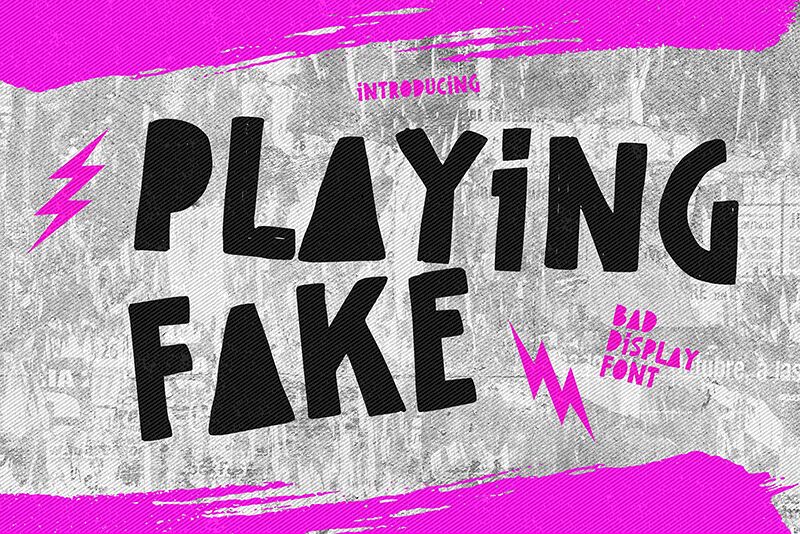
Playing Fake
Discover the dynamic flair of 'Playing Fake,' a standout creation by Gassstype that infuses your projects with a sense of modern spontaneity. This bold, semi-condensed display font is not just a typographic choice—it's an artistic statement. Designed to capture the essence of creative movement, 'Playing Fake' embodies a casual quickness that brings text to life.
With its unique all-caps characteristic and an endearing blend of cuteness and natural flow, this font is tailor-made for those seeking to inject personality into their work. Whether it's elevating food labels, crafting eye-catching posters, or giving branding materials an edge of originality, 'Playing Fake' ensures your designs resonate with contemporary charm.
Ideal for an array of applications—from greeting cards to photography overlays—this versatile typeface invites you to play outside the lines. Embrace the fun and let 'Playing Fake' transform your creative visions into memorable realities.